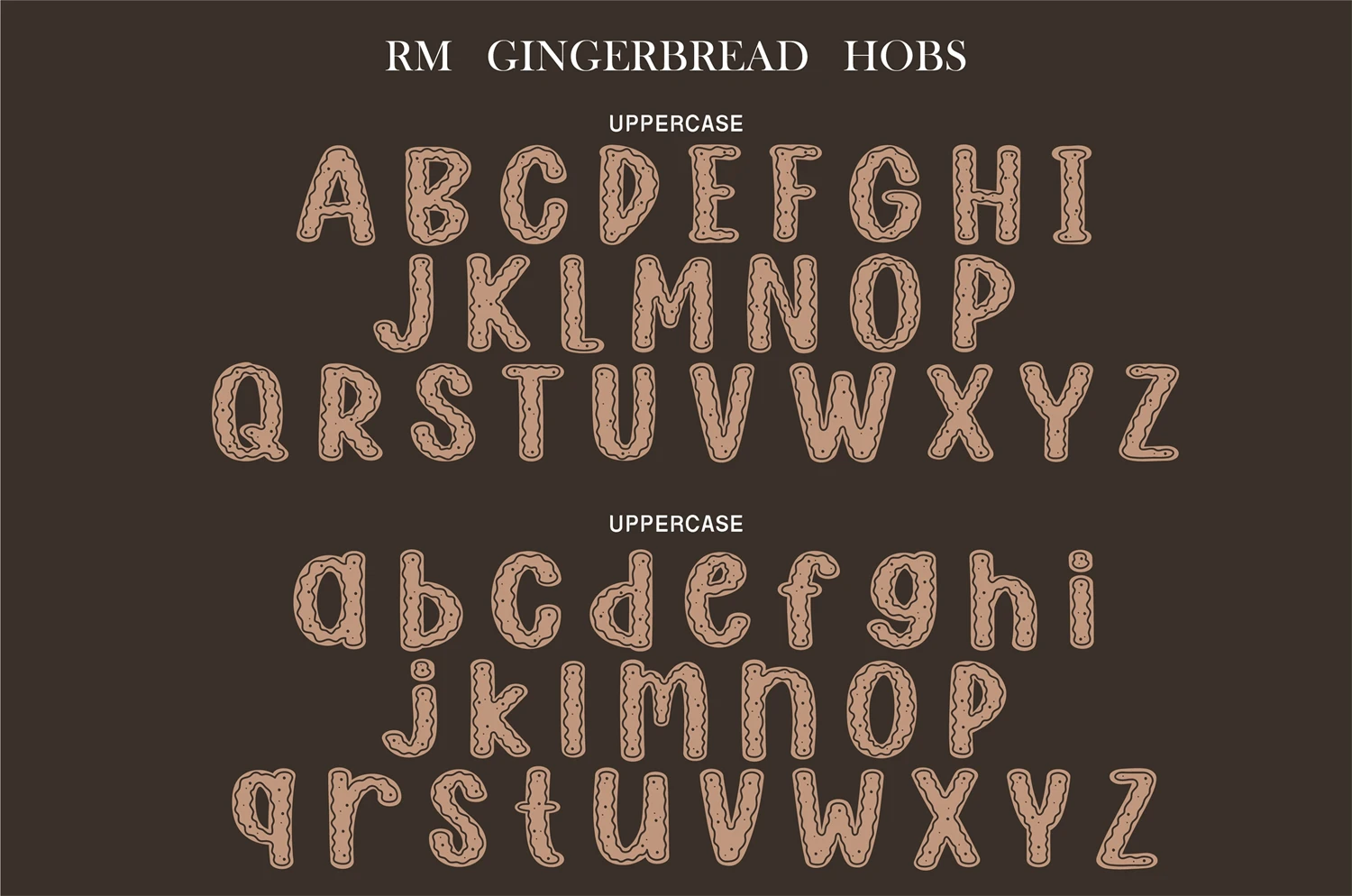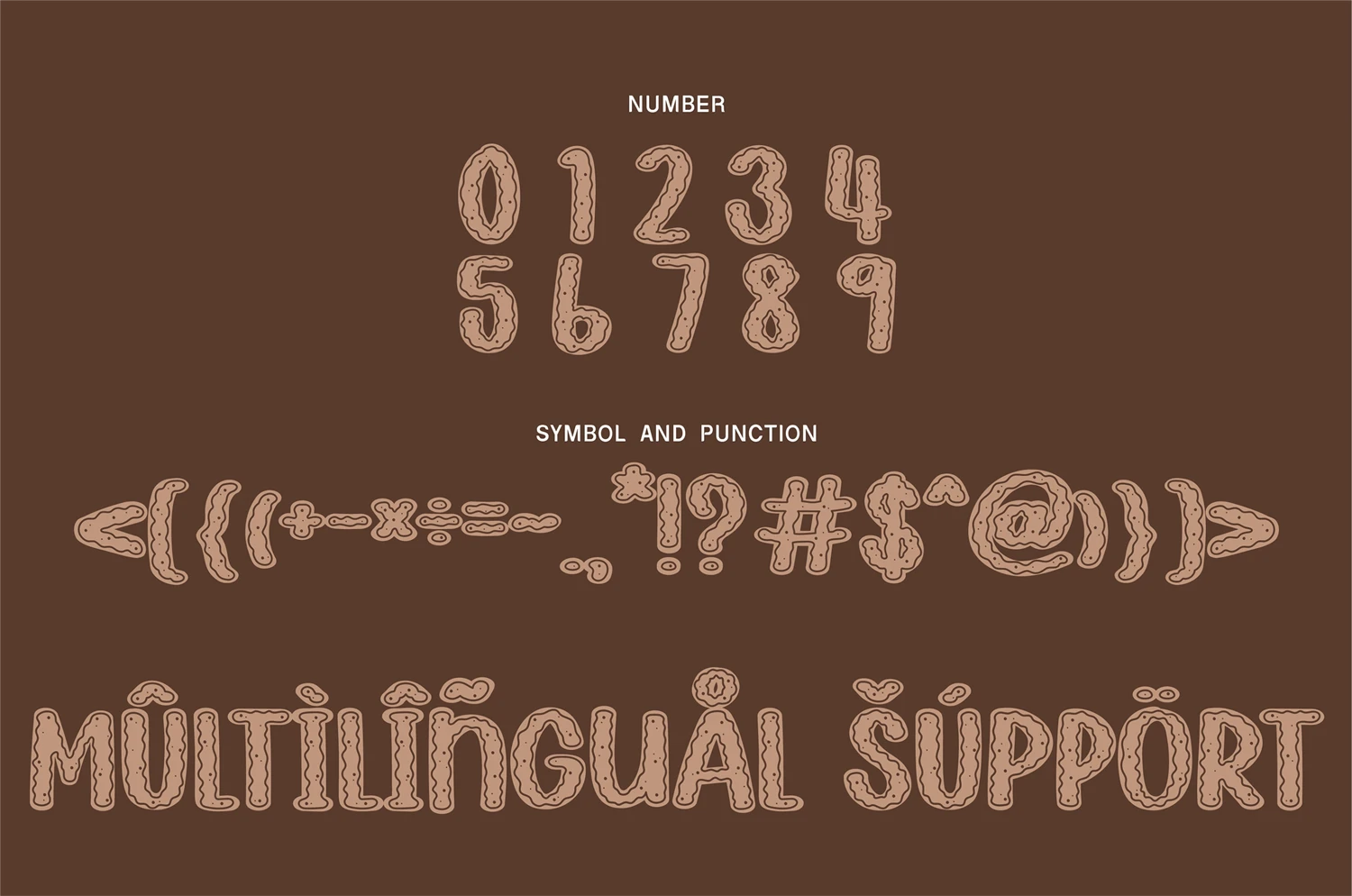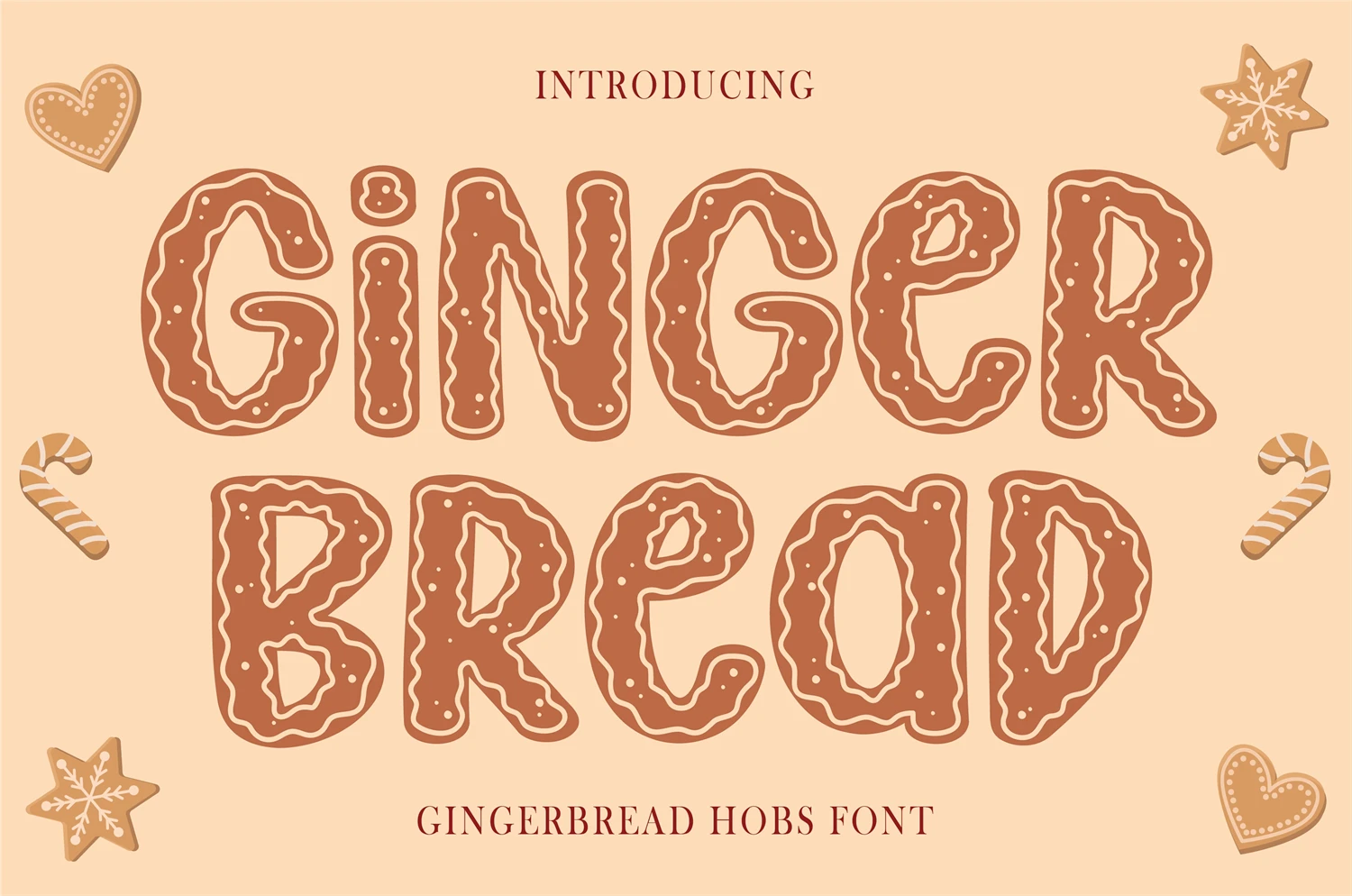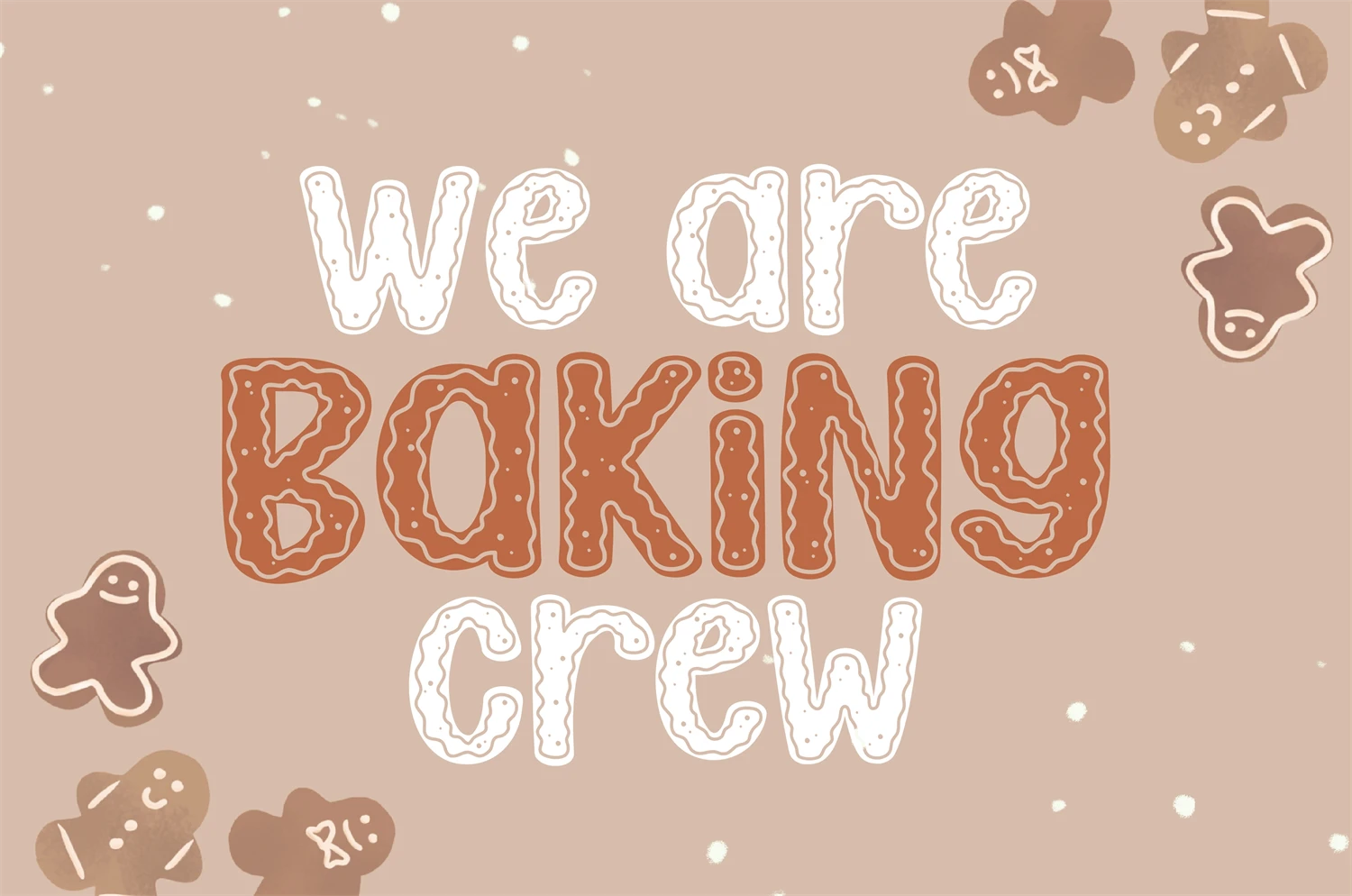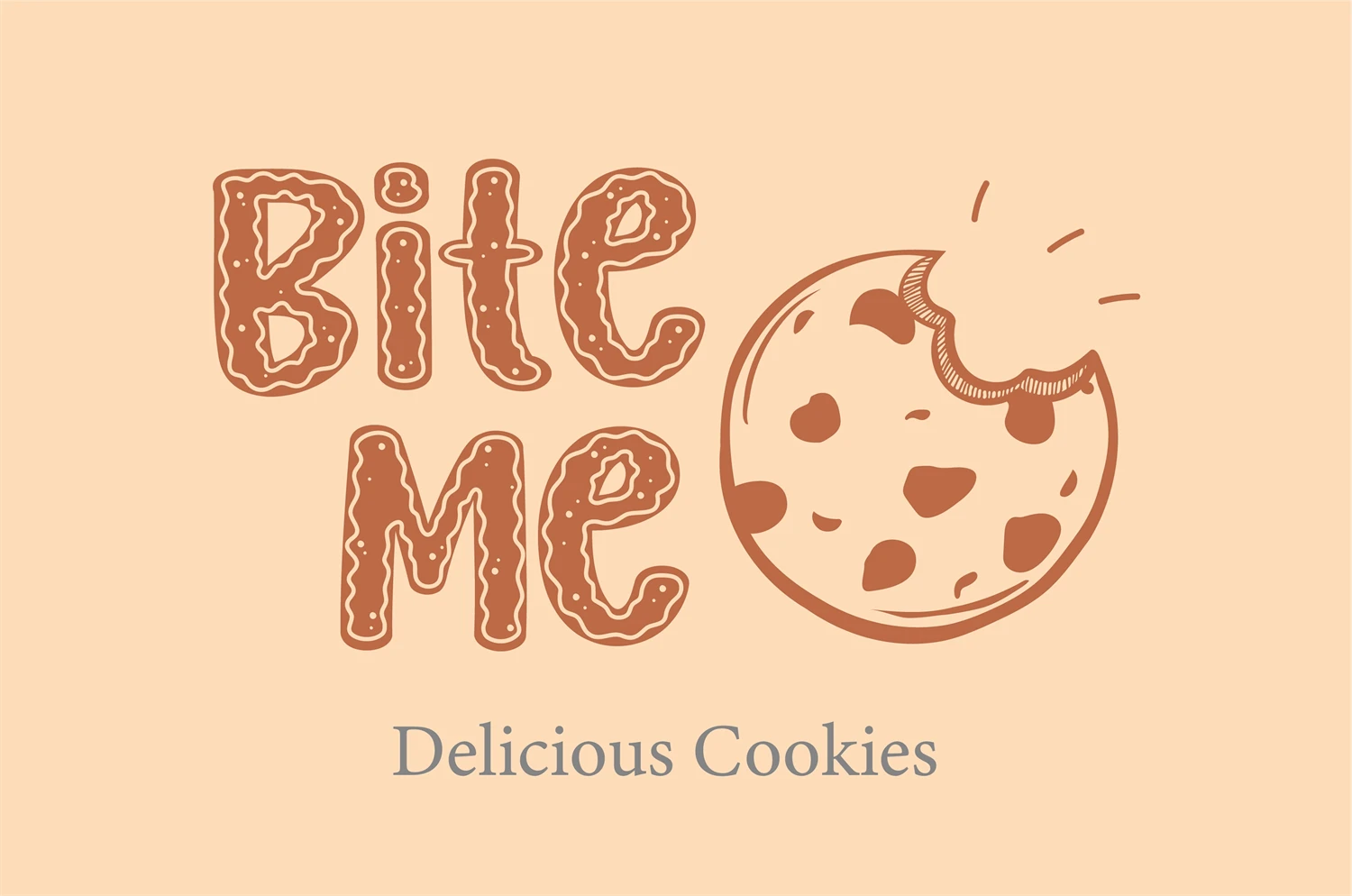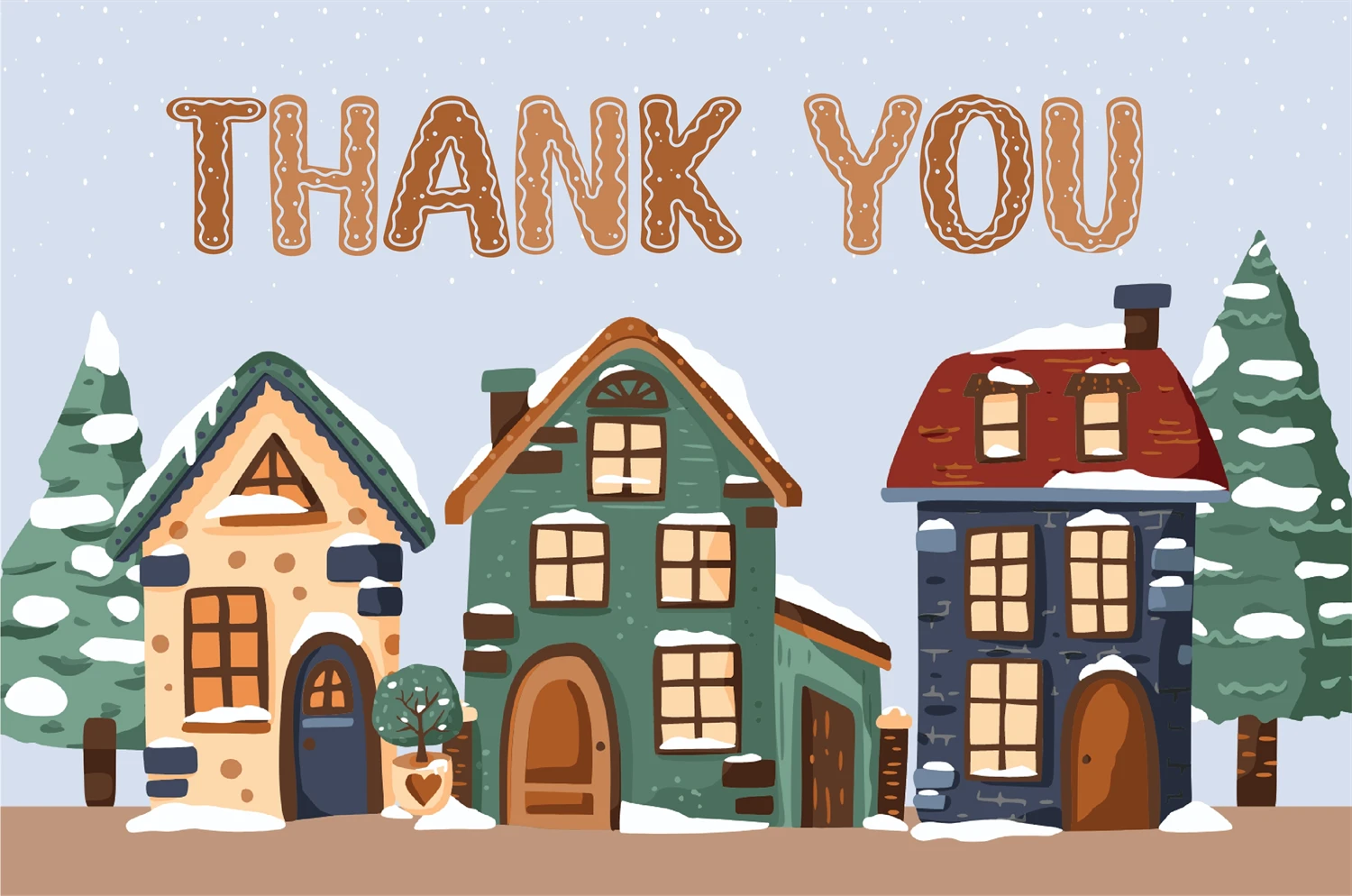
Gingerbread Hobs is display font for this festive season! Come with baked cookie detail in letter. Perfect for decorating your project, logo design, shirt design, etc. Easy to use , Cricut Support, Silhoutte Support, and All Program